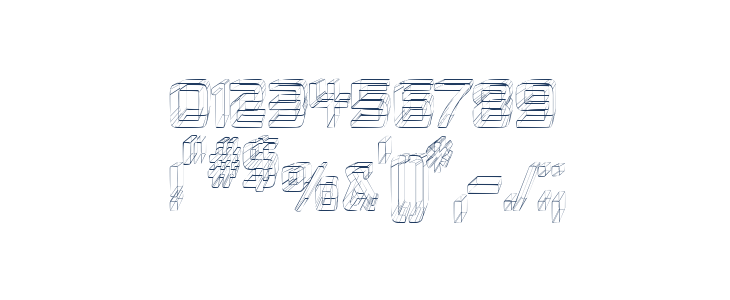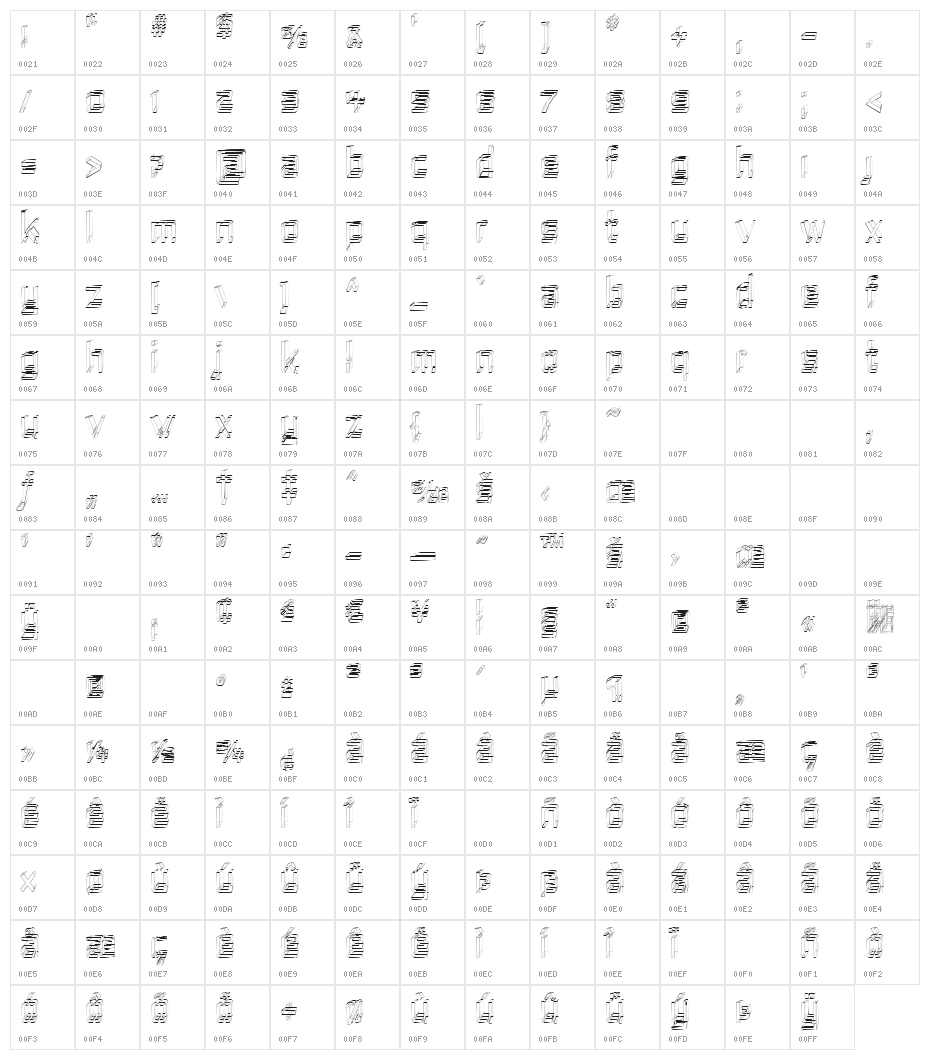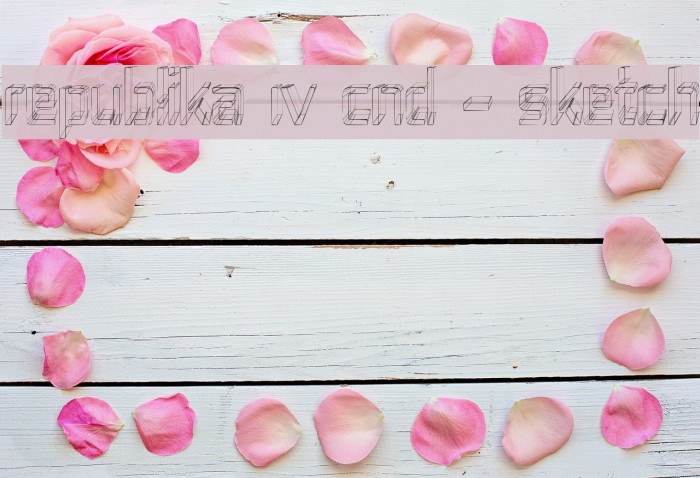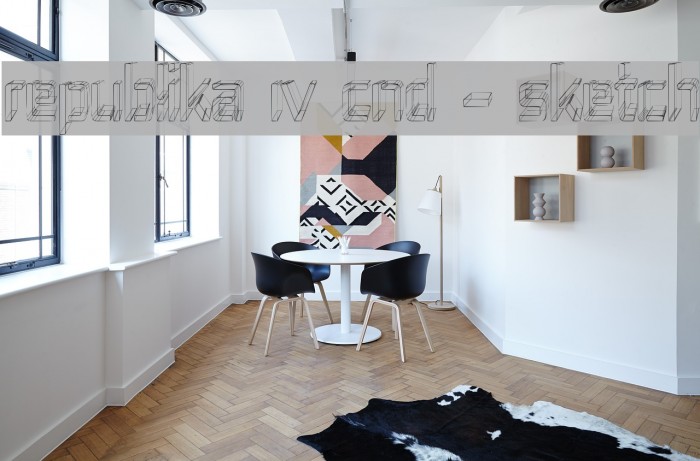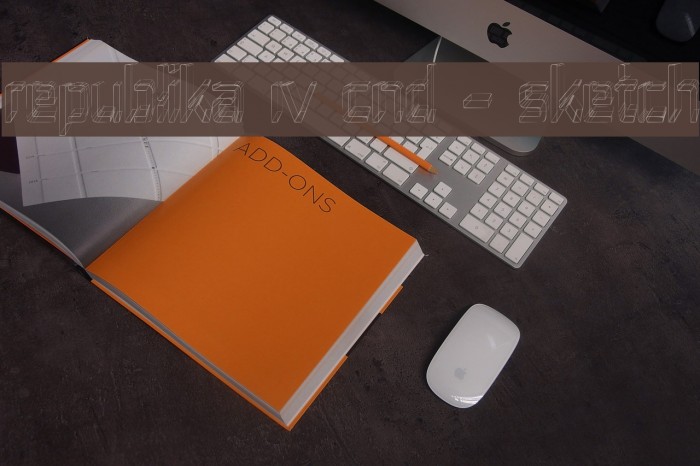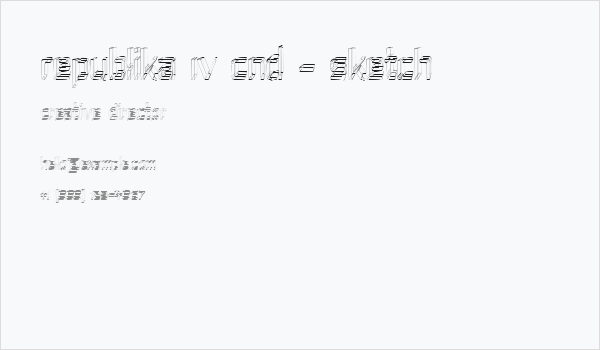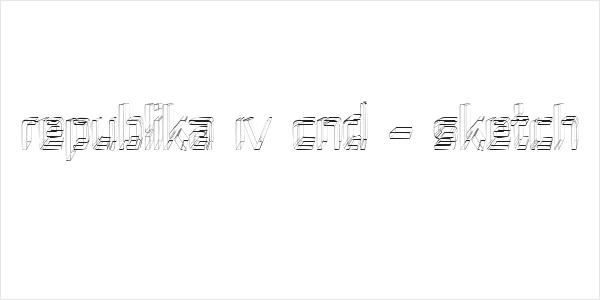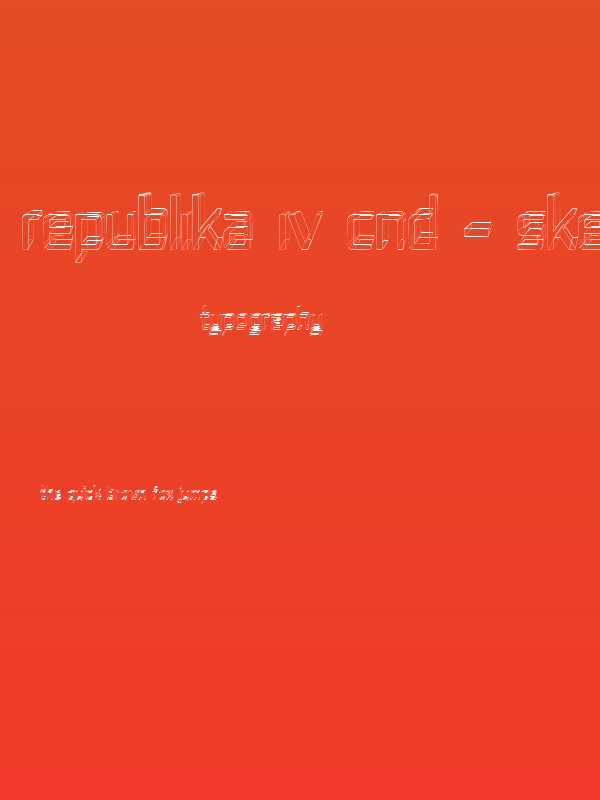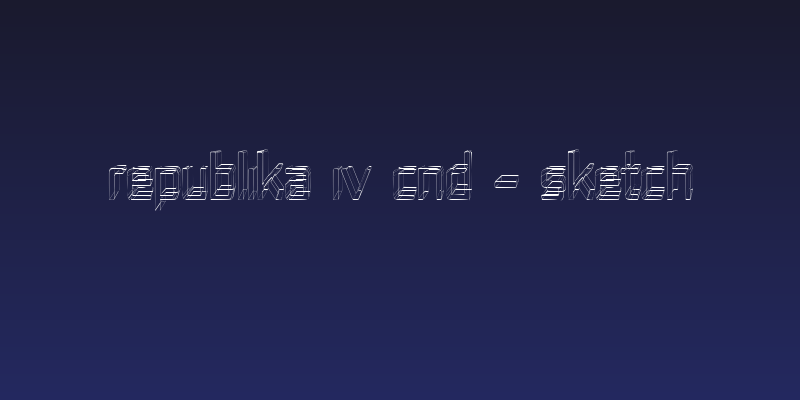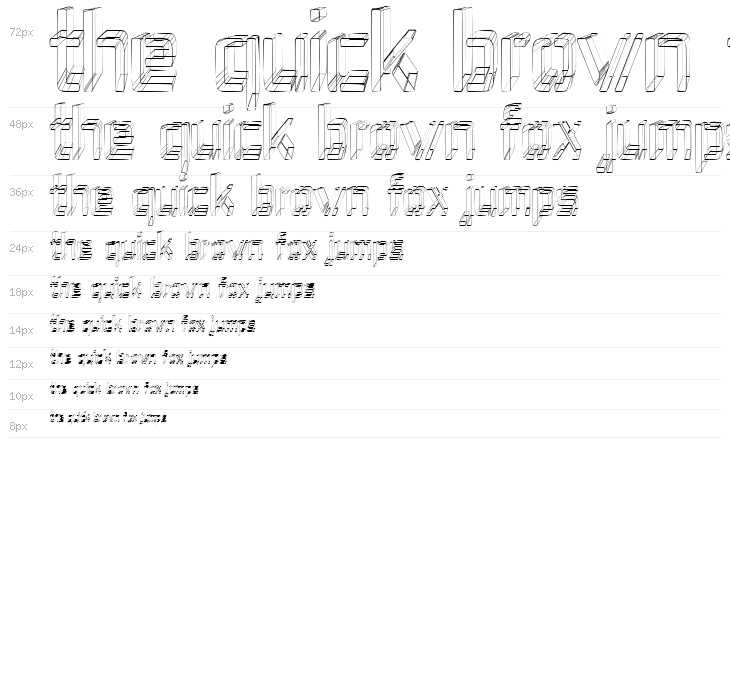
Republika IV Cnd - Sketch Font
Republika IV Cnd - Sketch Description
This font features a unique 3D sketch style, characterized by its geometric and angular letterforms. Each character is outlined with a hand-drawn effect, giving it a dynamic and artistic appearance. The font maintains a consistent structure across uppercase, lowercase, numbers, and special characters, with a distinct blocky and futuristic aesthetic. The sketch lines add a sense of depth and movement, making it stand out in any design. Its playful yet structured form makes it versatile for creative projects.
Overall StyleModern, Artistic
Proposed ProjectsIdeal for posters, album covers, video game graphics, and any project requiring a bold, artistic touch.